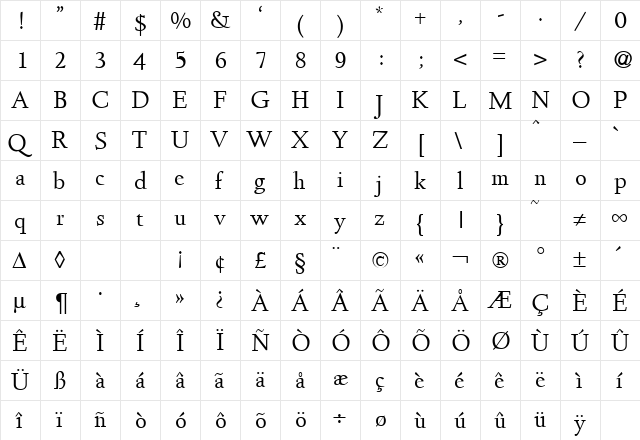
Deemster Regular
Design Context for Deemster Typeface
Deemster offers clean, dependable letterforms without strong stylistic allegiance, making it a practical choice for designers who need flexibility.
Pro Tip: Use Deemster in both headline and body roles to test its range before committing to a single application.